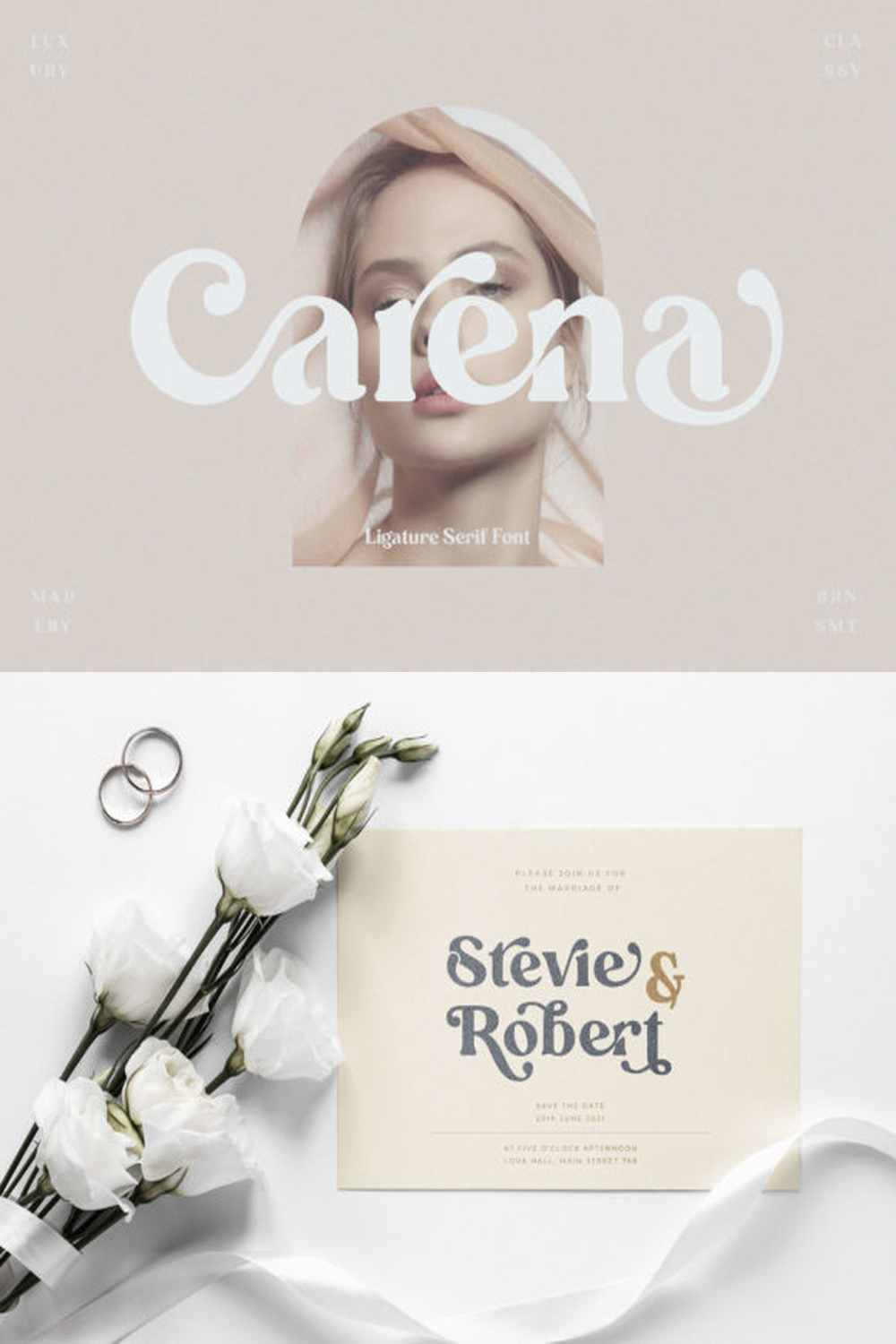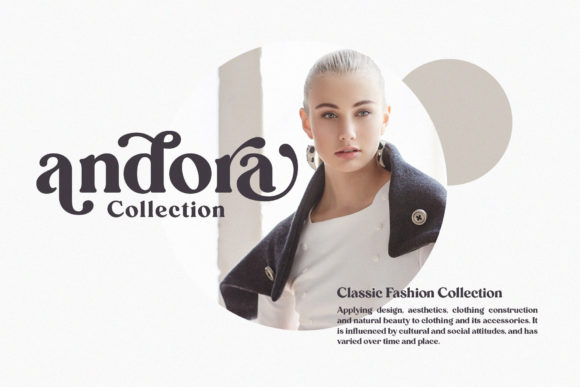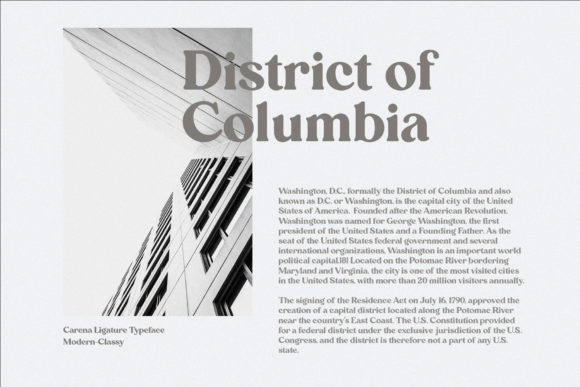
Carena Font: Elegant Ligature Serif for Modern Wedding Typography
About the Carena Font
Introducing the Carena Font, a beautifully crafted typeface designed to elevate your creative projects. Carena is a classy and stylish serif font. Fall in love with its incredibly versatile style and use it to create gorgeous wedding invitations, beautiful stationary art, eye-catching social media posts, and much more!